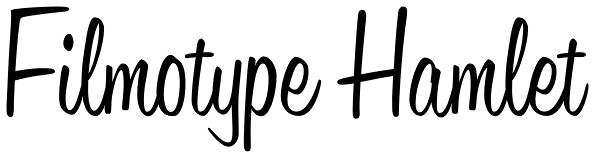
Filmotype Hamlet
Filmotype Hamlet was released by Filmotype in 1955 as a condensed version of it's first connecting script face Filmotype Harmony originally designed by Ray Baker. Filmotype regularly created derivative styles and weights of its typefaces as its...